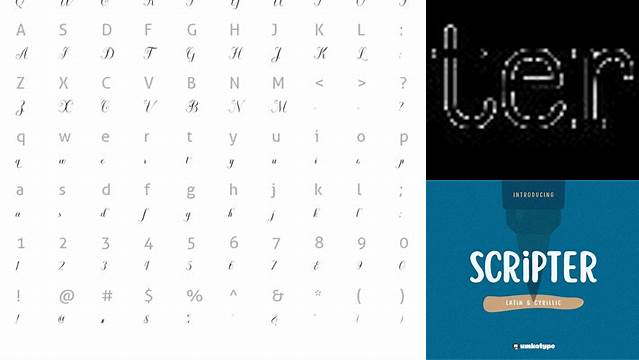
Hey guys! Are you looking for that perfect font to add a touch of elegance and personality to your projects? Well, look no further! Today, we’re diving deep into everything you need to know about Scripter Regular, a font that’s been making waves in the design world. We'll cover how to find it for free and make the most out of it. So, let’s get started!
What is Scripter Regular?
Before we jump into the free download part, let's understand what makes Scripter Regular so special. It is a beautifully crafted typeface that brings a unique flair to any design project. Its flowing lines and distinct characters make it ideal for invitations, branding, logos, and much more. Scripter Regular is known for its readability and aesthetic appeal. This makes it a favorite among designers and hobbyists alike. The font embodies a sense of sophistication and charm, perfect for projects that aim to convey a personal touch. Its versatility extends across various design mediums, from digital graphics to print materials. Whether you're designing a wedding invitation, creating a logo for a boutique brand, or adding a stylistic touch to a website, Scripter Regular can elevate your work with its distinctive appearance. Its ability to balance elegance and legibility makes it a valuable asset in any designer's toolkit. The font's appeal lies in its ability to add a human touch to digital designs, making them feel more relatable and engaging. Scripter Regular truly stands out with its ability to enhance the visual appeal and readability of diverse design projects.
Scripter Regular Font: Overview
Let's kick things off with an overview. The Scripter Regular font is a stunning typeface that blends classic calligraphy with a modern twist. It’s perfect for adding a touch of sophistication to invitations, logos, and branding materials. Its elegant curves and smooth lines make it incredibly versatile, suitable for both print and digital projects. Whether you're a seasoned designer or just starting out, Scripter Regular offers a unique way to elevate your work. This font is designed to be both visually appealing and highly readable, ensuring your message is not only beautiful but also clear and impactful. Its carefully crafted characters flow seamlessly together, creating a harmonious and polished look. The font's versatility allows it to be used in a wide range of design applications, from wedding invitations and event announcements to corporate branding and advertising campaigns. Scripter Regular's unique style helps capture attention and leave a lasting impression. Moreover, its widespread availability and ease of use make it an accessible choice for designers of all skill levels. So, whether you're looking to add a touch of elegance to your next project or create a distinctive brand identity, the Scripter Regular font is an excellent choice to consider.
Conclusion: Unleash Your Creativity with Scripter Regular